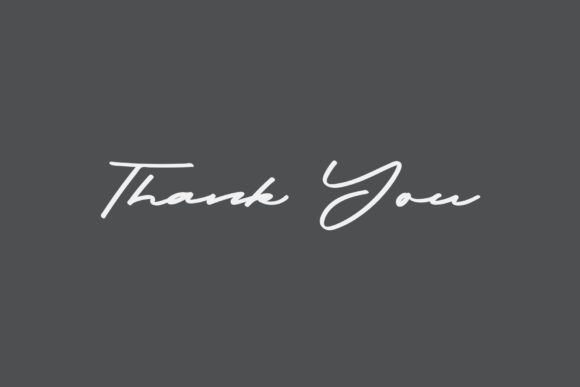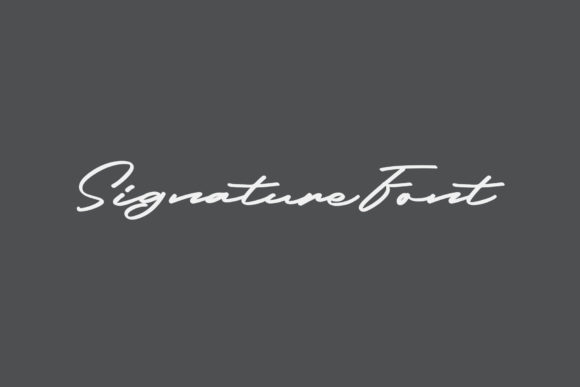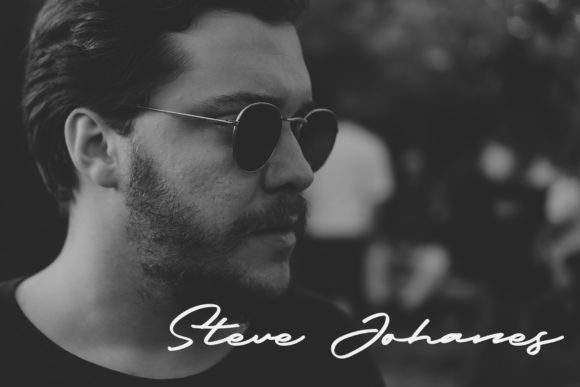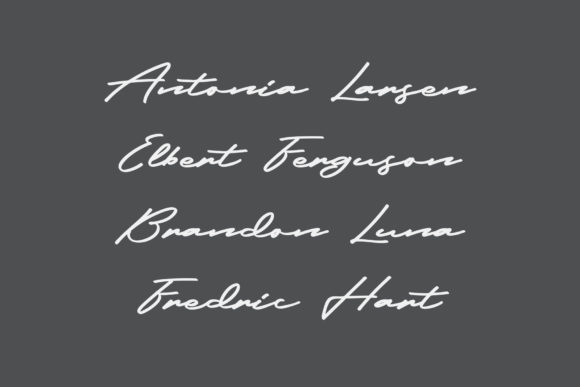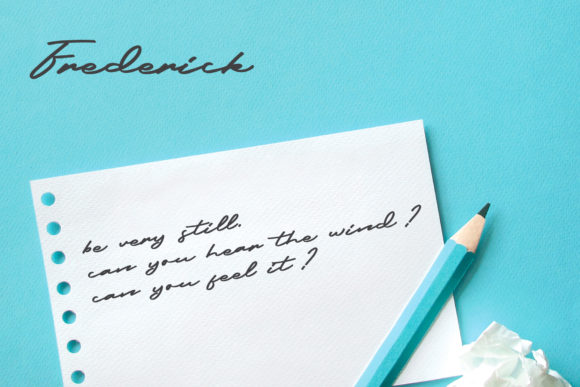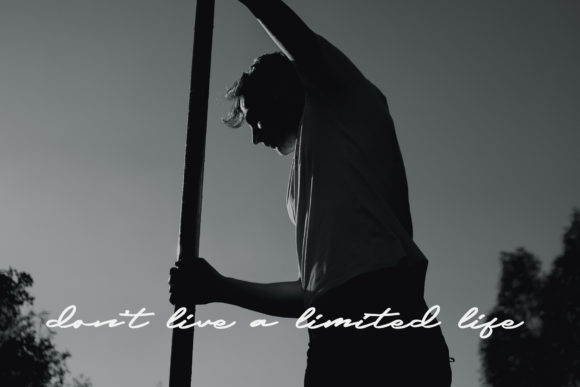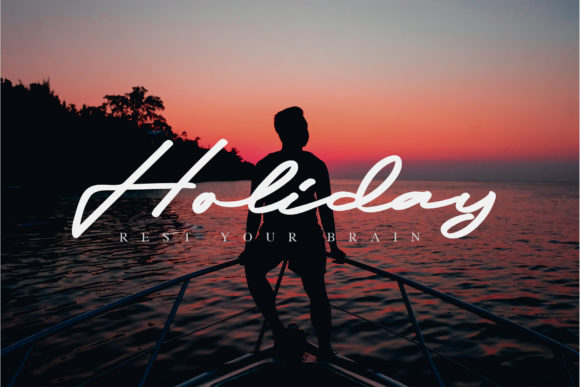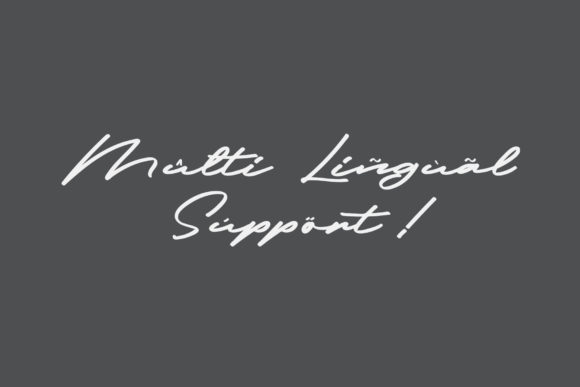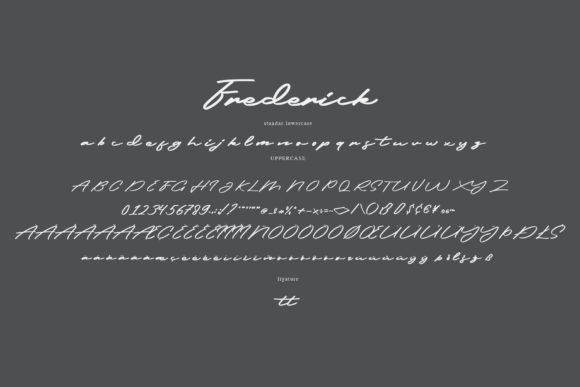
Frederick Script Font
About Frederick Script Font
The Frederick is a classic handwritten script. It has a simple, yet classy style which can be great for watermarks, signatures, logos, quotes, covers, business cards, and every other design your creative mind can think of. Frederick is here to elevate your work to the highest level.